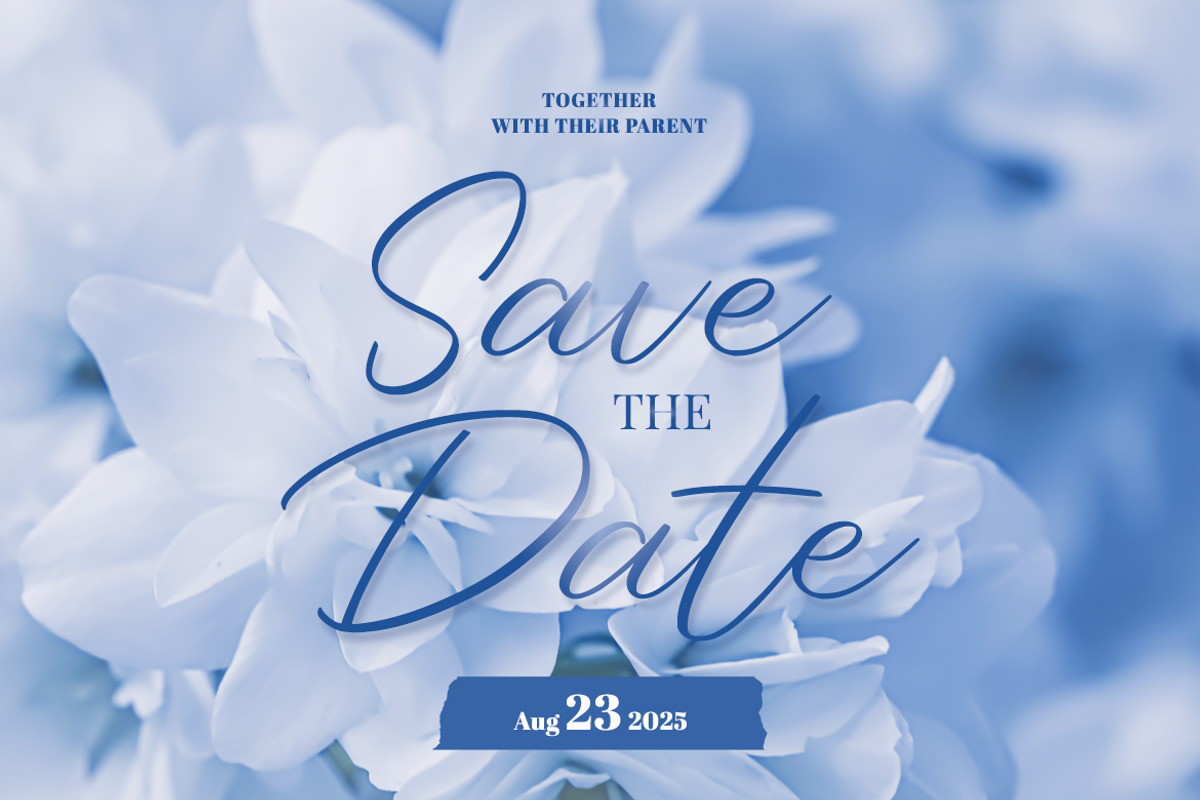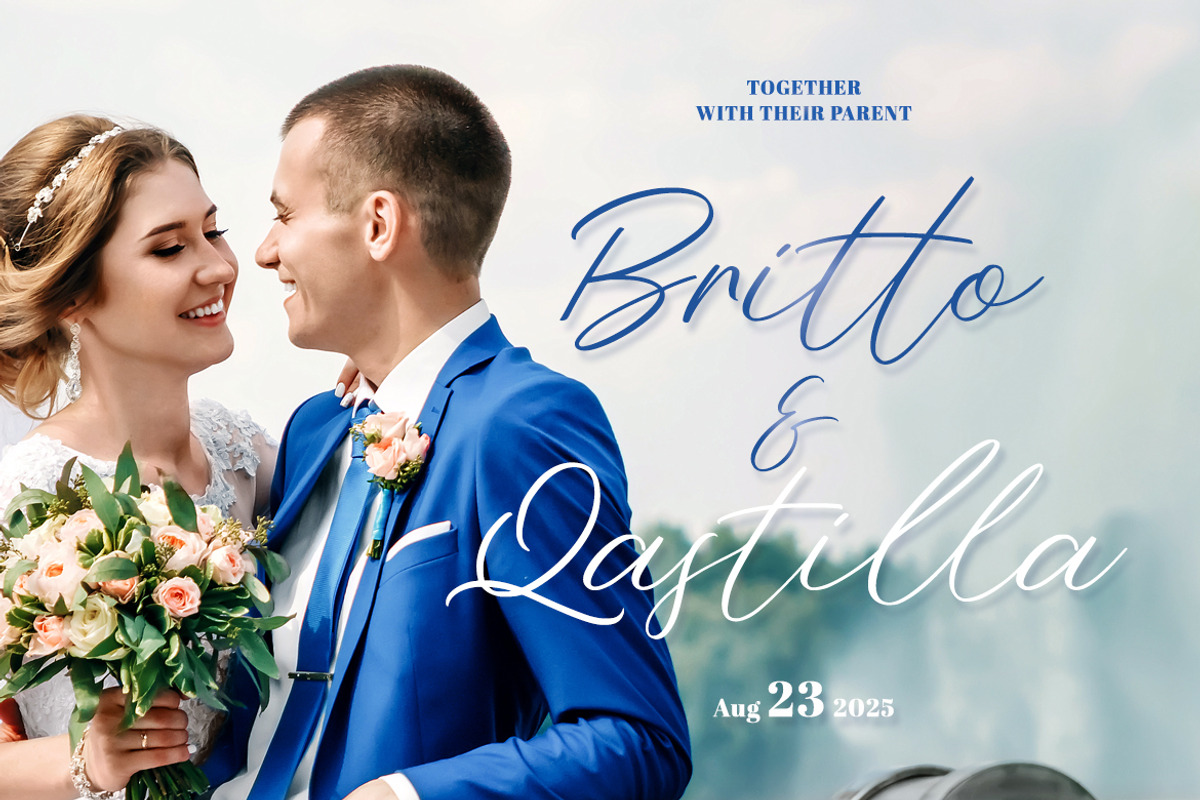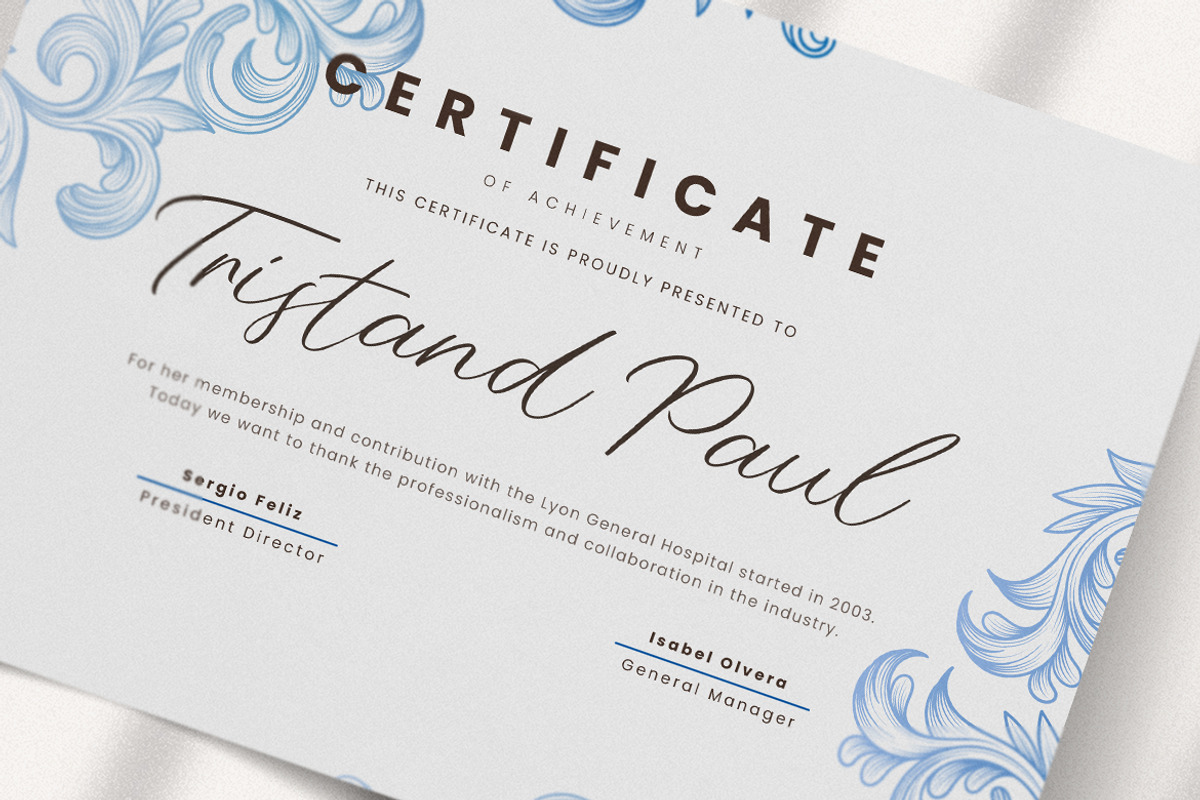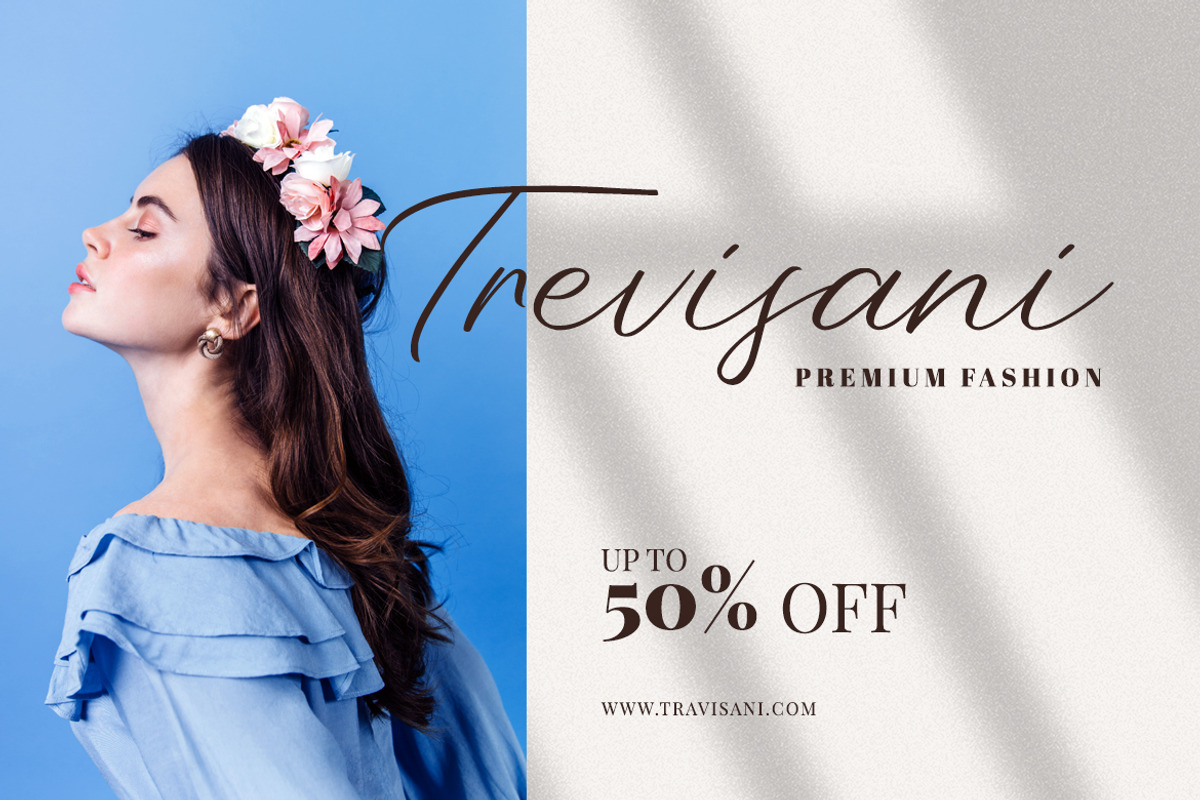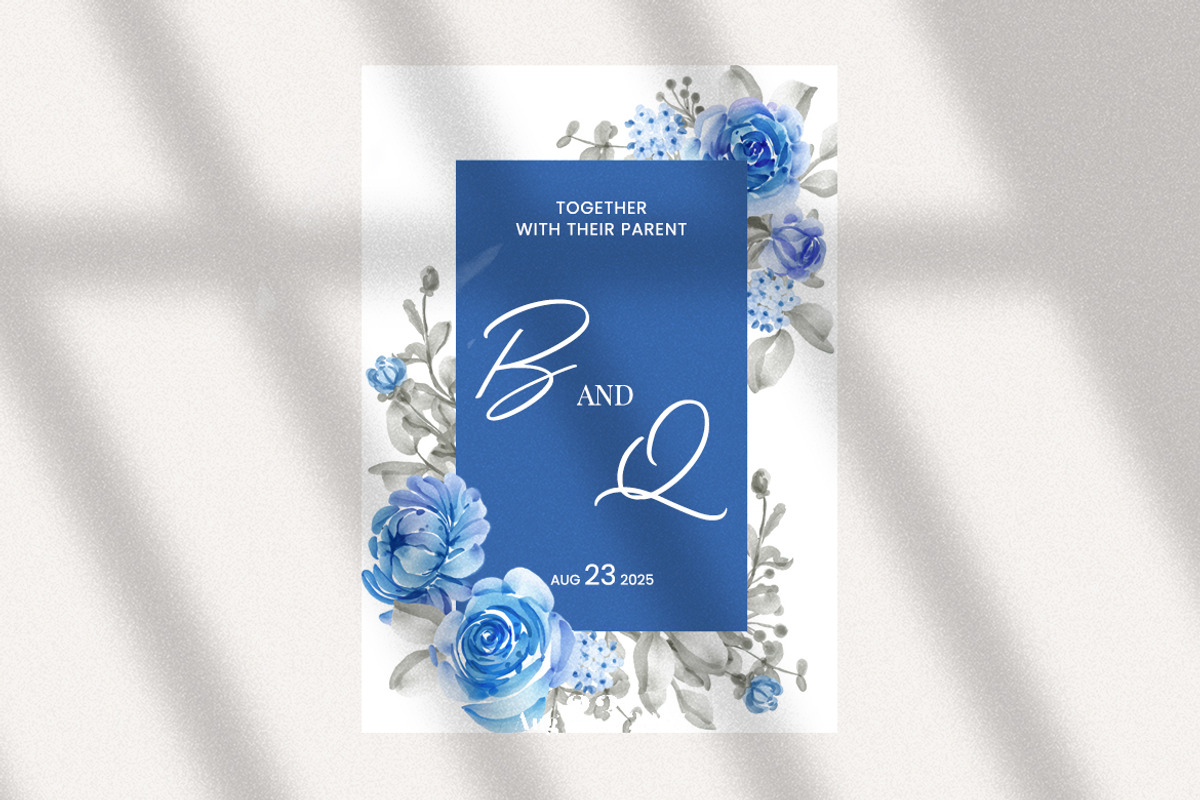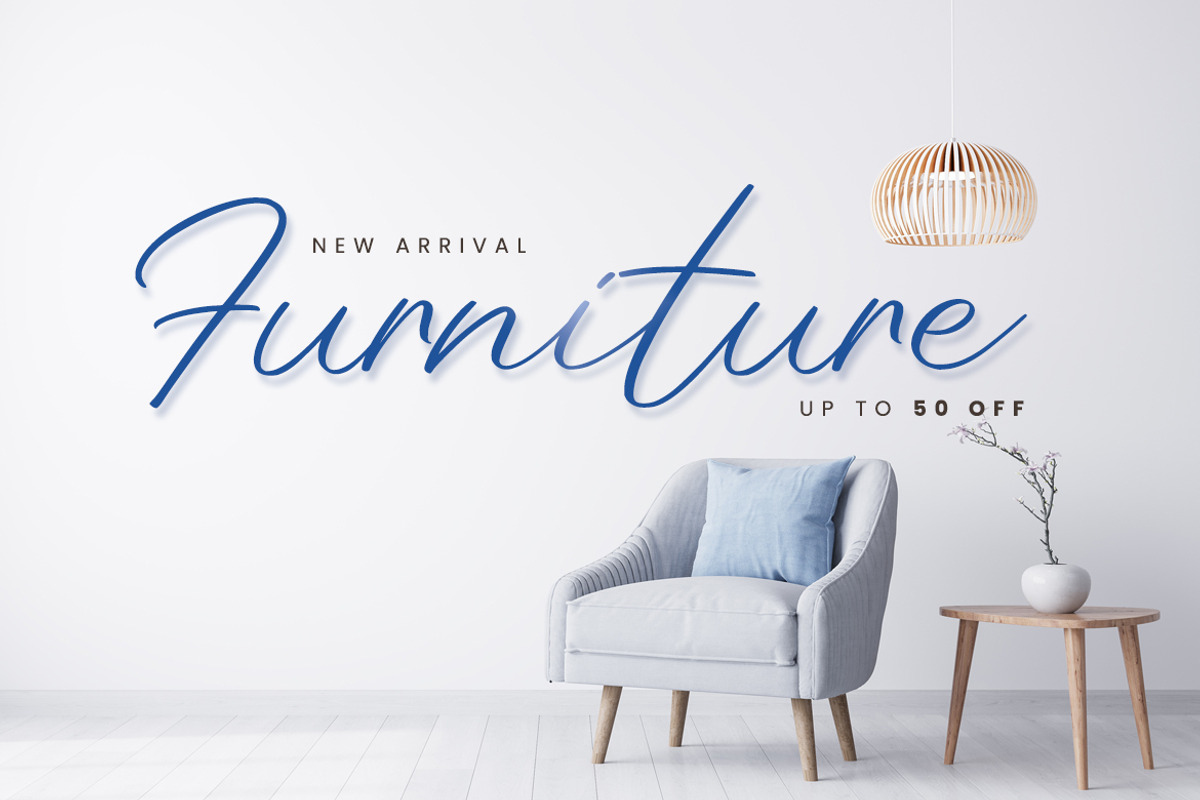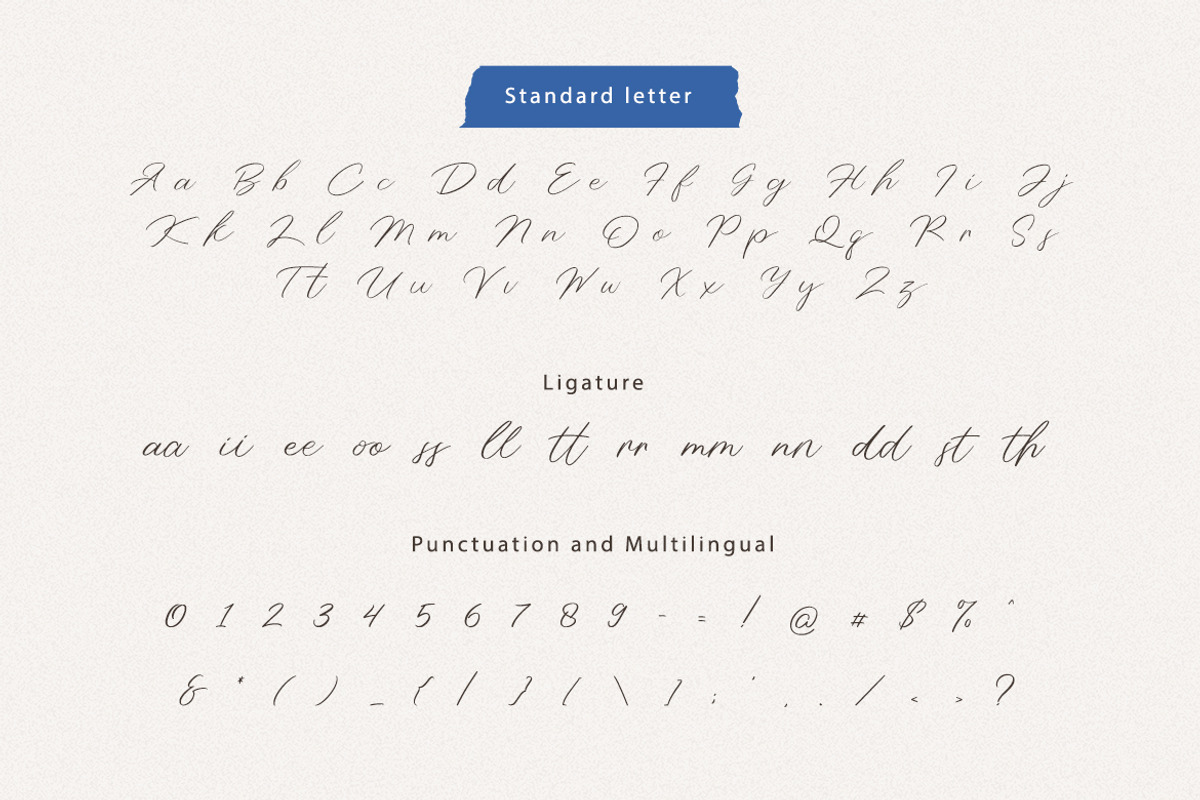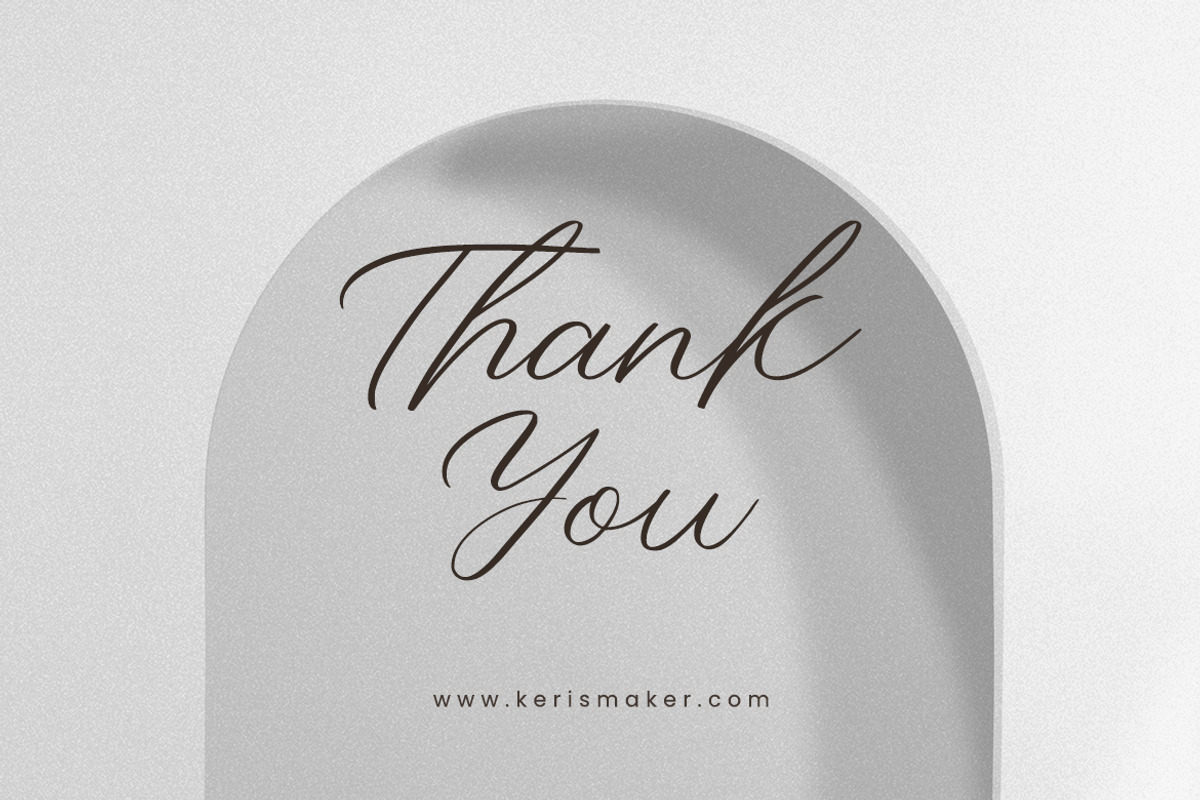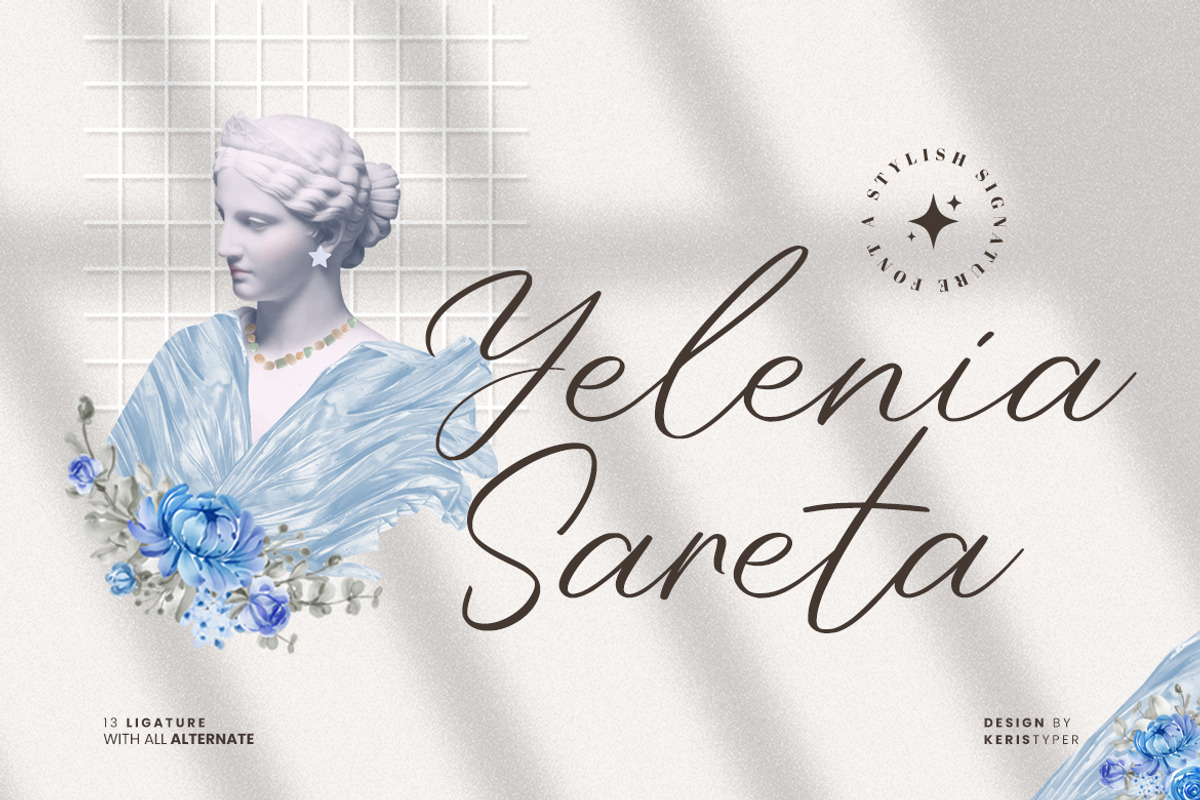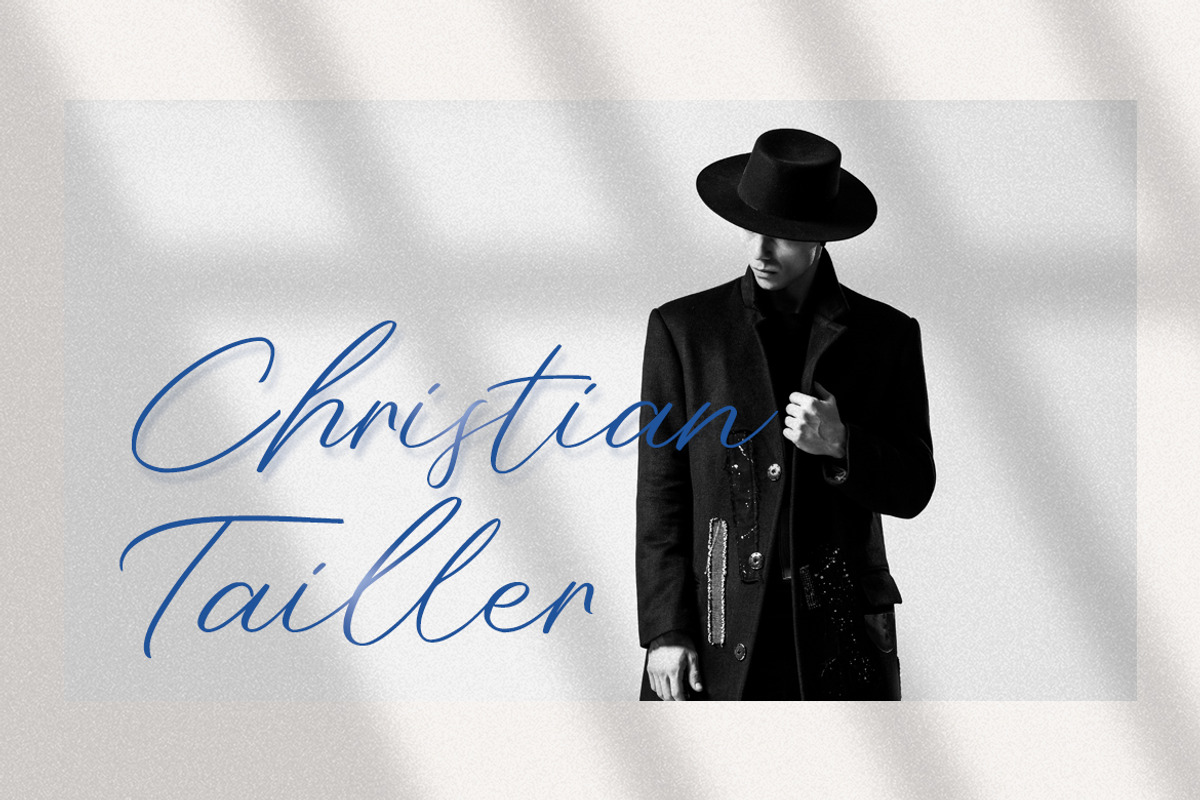
Yelenia Sareta
Introducing a new Stylish Signature font, Yelenia Sareta! Yelenia Sareta is perfect for elegant logos, upscale packaging, wedding stationery, websites, and any other projects requiring a handwritten and luxurious touch.
Yelenia Sareta Font multilingual support: Afrikaans, Albanian, Catalan, Danish, Dutch, English, Estonian, French, Finnish, German, Icelandic, Indonesian, Italian, Malay, Norwegian, Portuguese, Spanish, Swedish, Zulu, and many more.